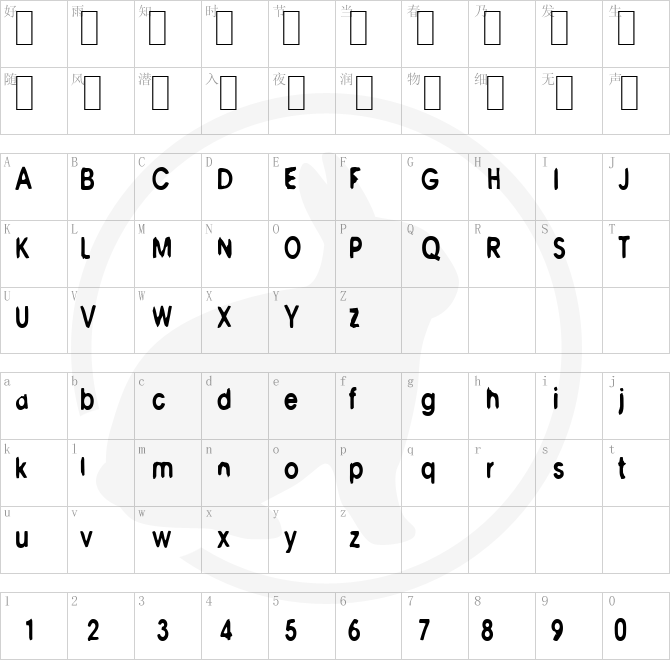
- Font Name:M6
- Full Name:M6 Universelle
M6-Universelle.ttf is a very beautiful artistic font, M6-Universelle.ttf is widely used in the design and printing of various books and pictures,M6-Universelle.ttf has a strong visual impact,M6-Universelle.ttf is a commonly used font in newspapers, magazines and books, and is used in posters, e-commerce Poster design, store design, logo design, font design and other fields.M6-Universelle.